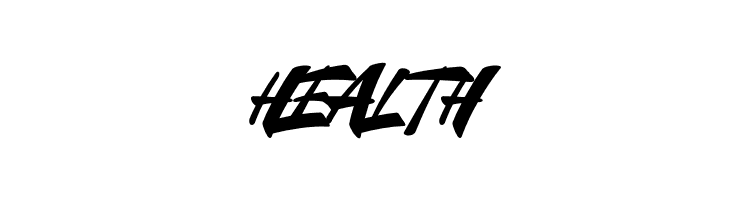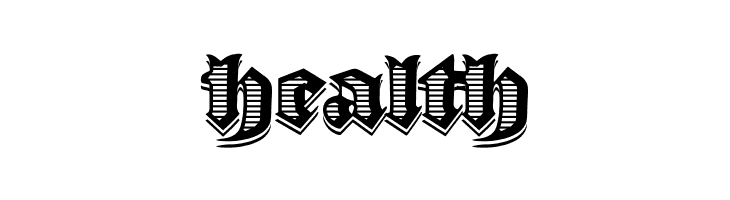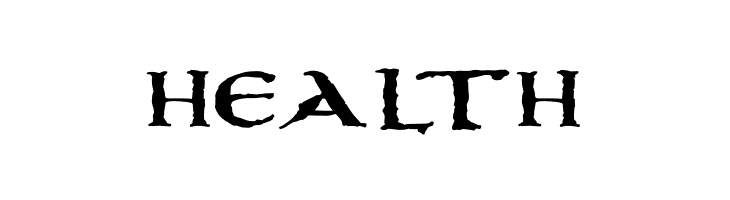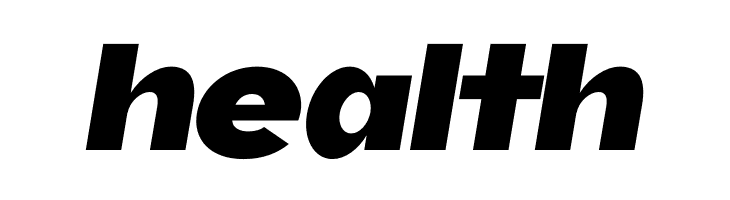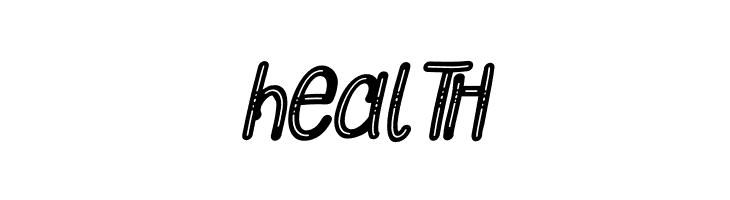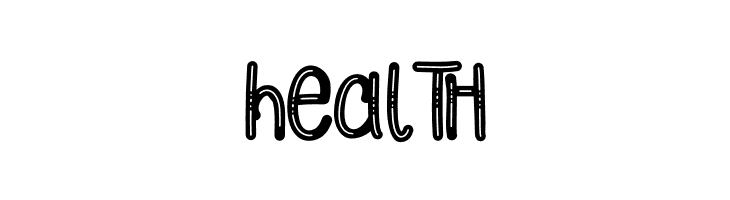
A bold, dynamic script font with an expressive, modern style.
A bold, shadowed Blackletter font with intricate detailing.
A rugged, hand-drawn font with a distressed, historical appearance.
A playful and expressive handwritten font with fluid, dynamic strokes.
A dynamic and elegant script font with a flowing, handwritten style.
Bold, slanted font with a modern, dynamic style.
A bold, italicized font with a rough texture and dynamic style.
A playful, striped italic font with bold strokes and rounded edges.
A playful, striped font with rounded, bold characters and a whimsical style.
A bold, geometric stencil-style font with a modern industrial feel.